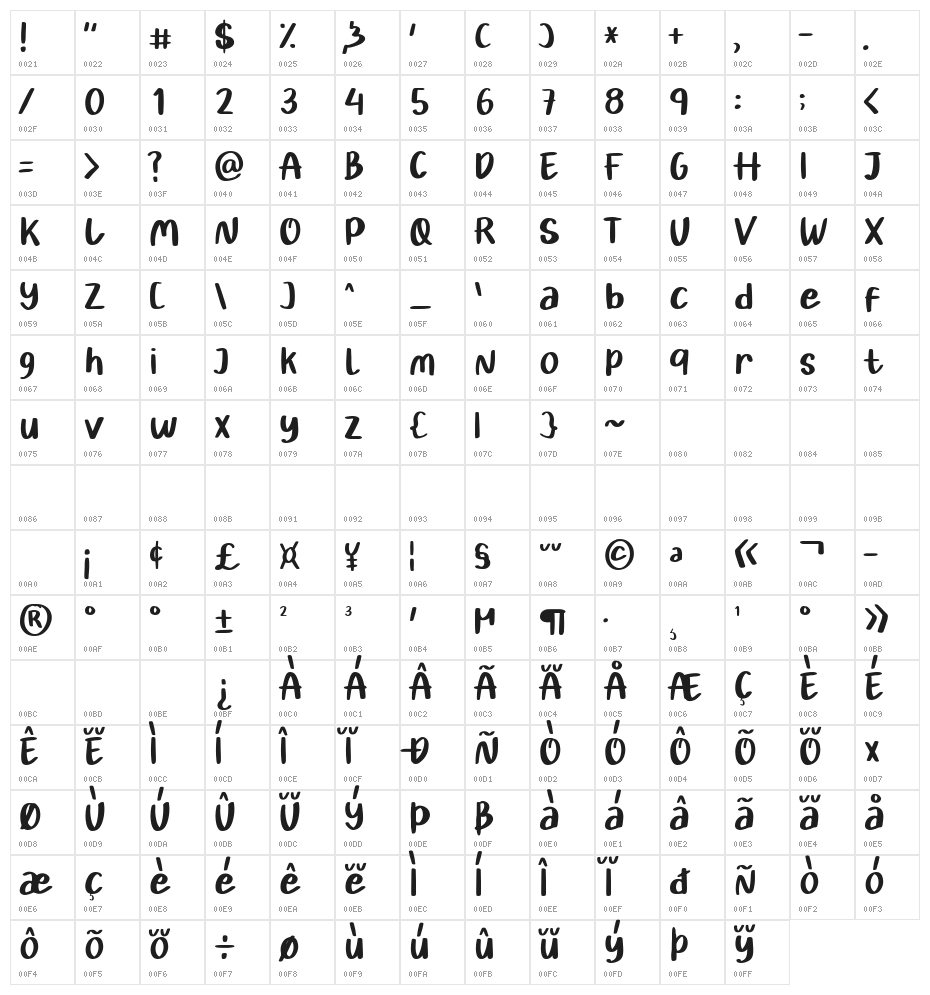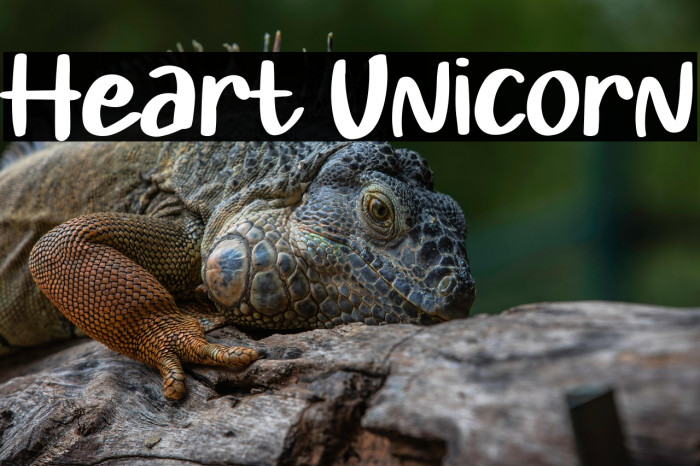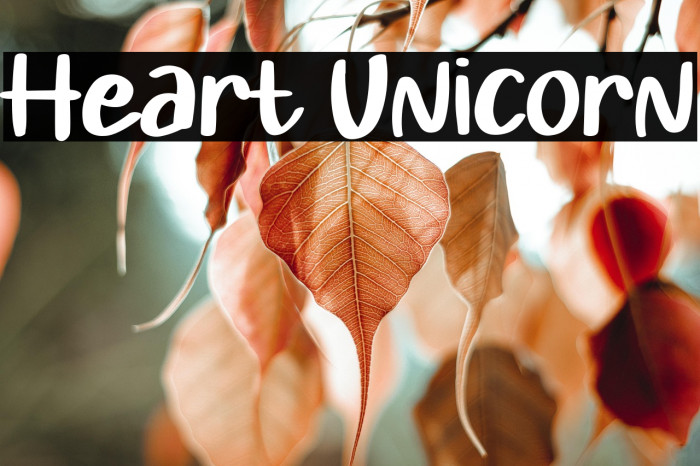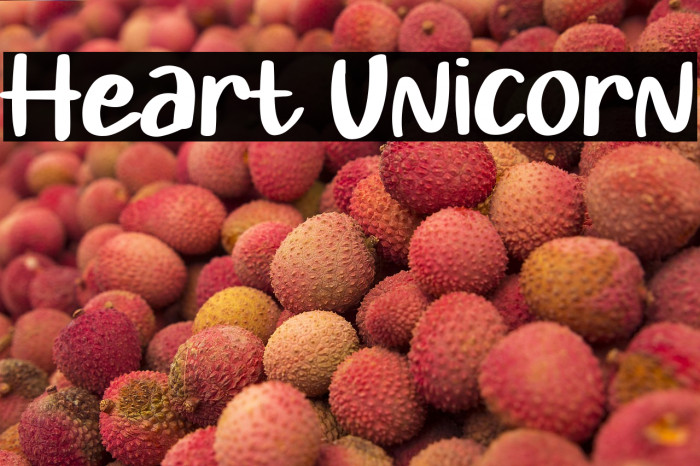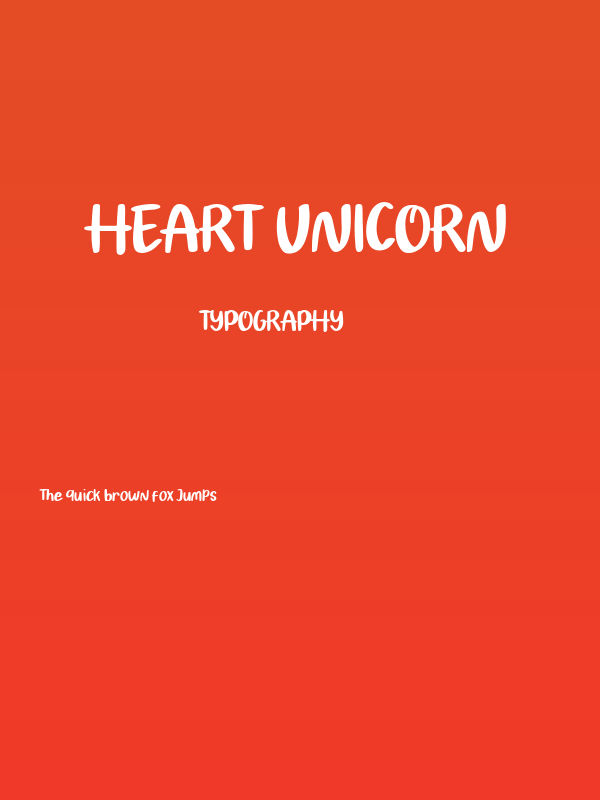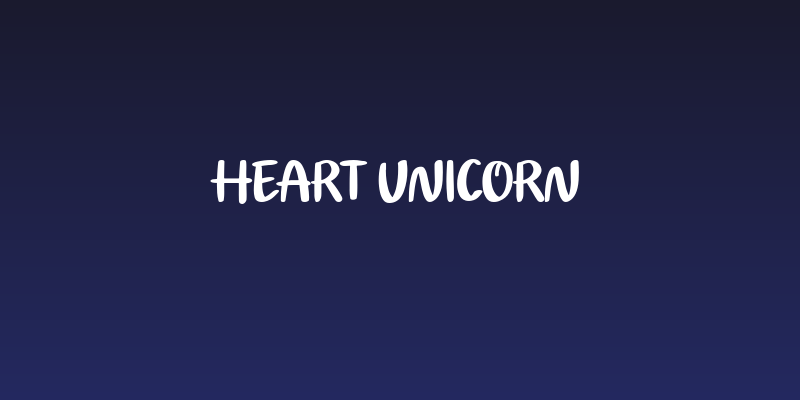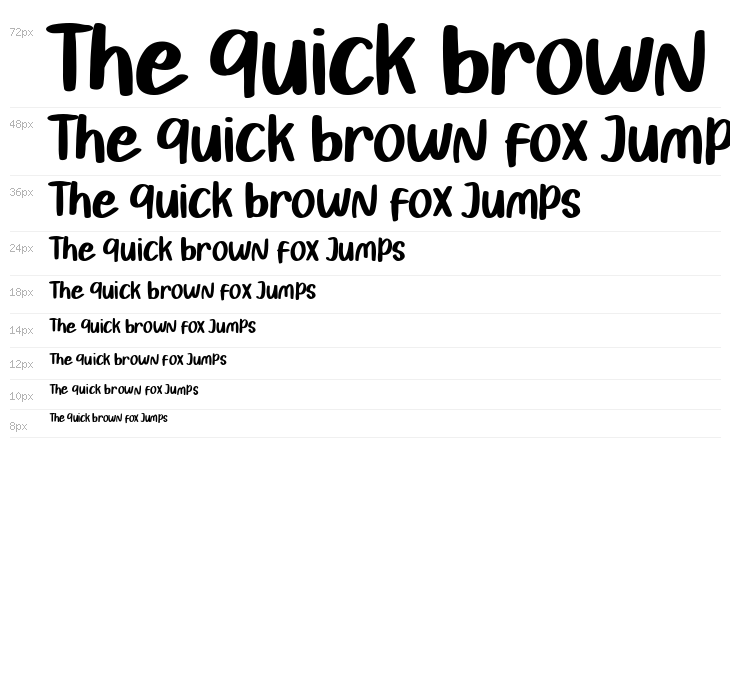
Heart Unicorn Font
Heart Unicorn Description
This playful and whimsical font features a handwritten style with bold, rounded characters. Each letter is crafted with a smooth, flowing line that gives it a friendly and approachable appearance. The uppercase and lowercase letters maintain a consistent style, while the numerals and special characters complement the overall design. The font's bold weight and medium contrast make it highly legible, even at smaller sizes. Its unique character spacing adds to its charm, making it ideal for creative and informal projects.
Overall StylePlayful
Use CaseHeadlines, Logos, Informal Text
Proposed ProjectsIdeal for children's books, greeting cards, playful branding, and social media graphics.